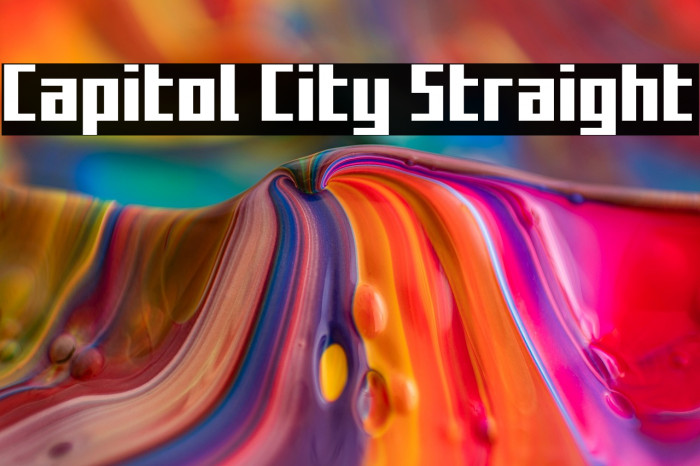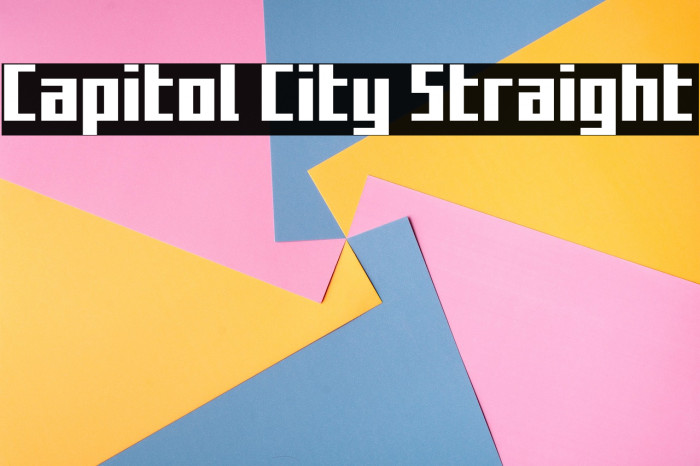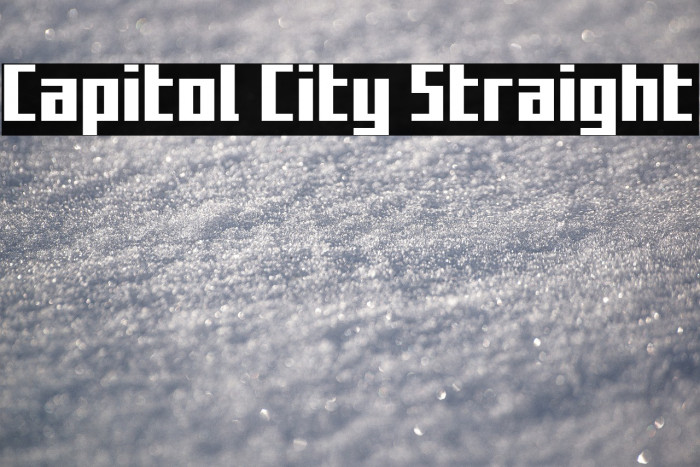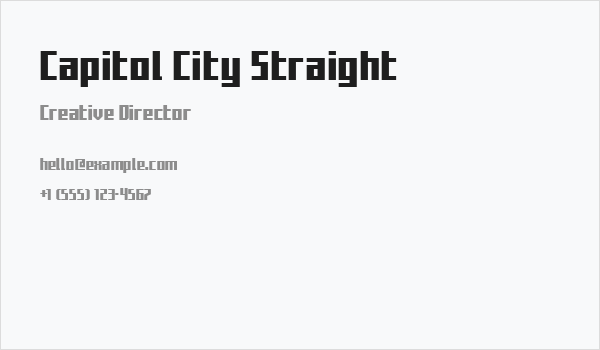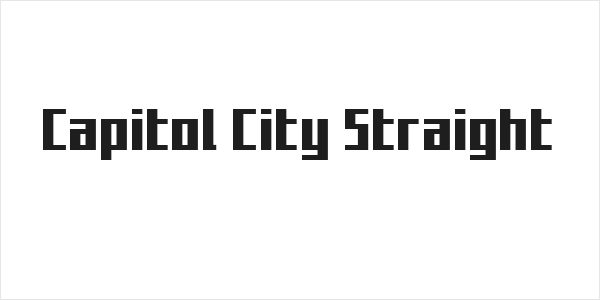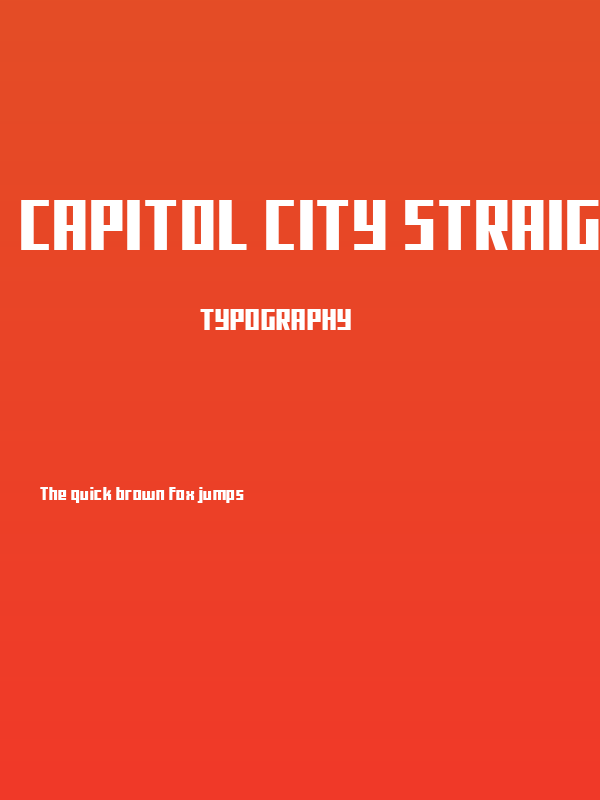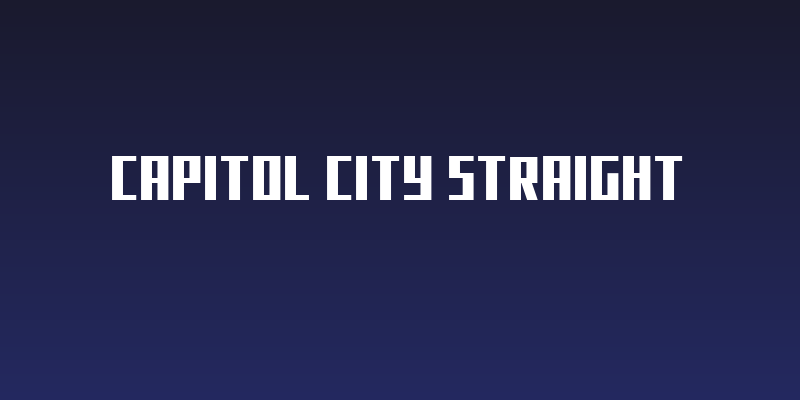
Capitol City Straight Font
Capitol City Straight Description
This font features a bold, geometric design with strong, angular lines and a distinctly modern aesthetic. The uppercase and lowercase letters maintain a consistent height, creating a uniform appearance. The numerals and special characters follow the same design principles, ensuring cohesion across all elements. The font's blocky structure and sharp edges give it a commanding presence, making it ideal for attention-grabbing applications. The consistent stroke width throughout the characters contributes to its bold and impactful look.
| Proposed Projects | Ideal for posters, headlines, branding, and any project requiring a bold, modern typeface. |